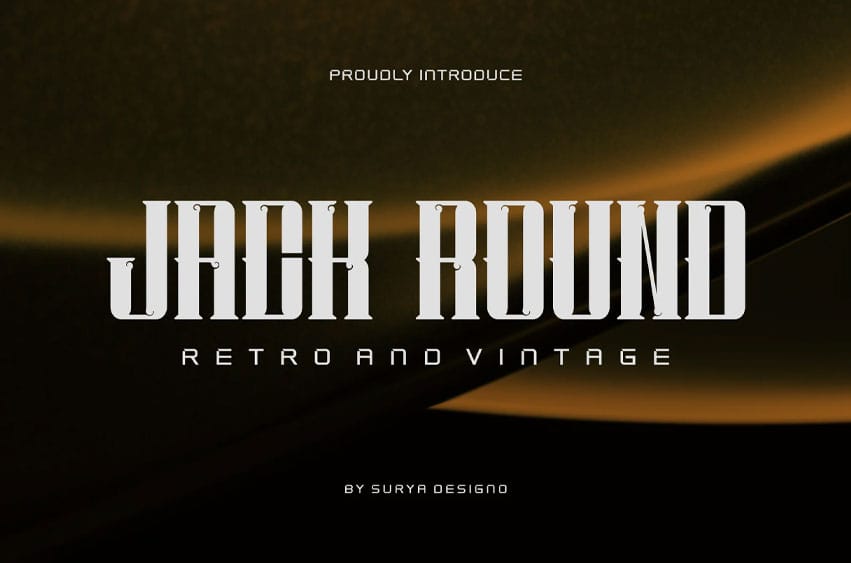
Jack Round Font Modern Font is a bold and authentic display font.
The font is suitable for any branding project like logo, t-shirt printing, esport, and many more. outstanding in a wide range of contexts.